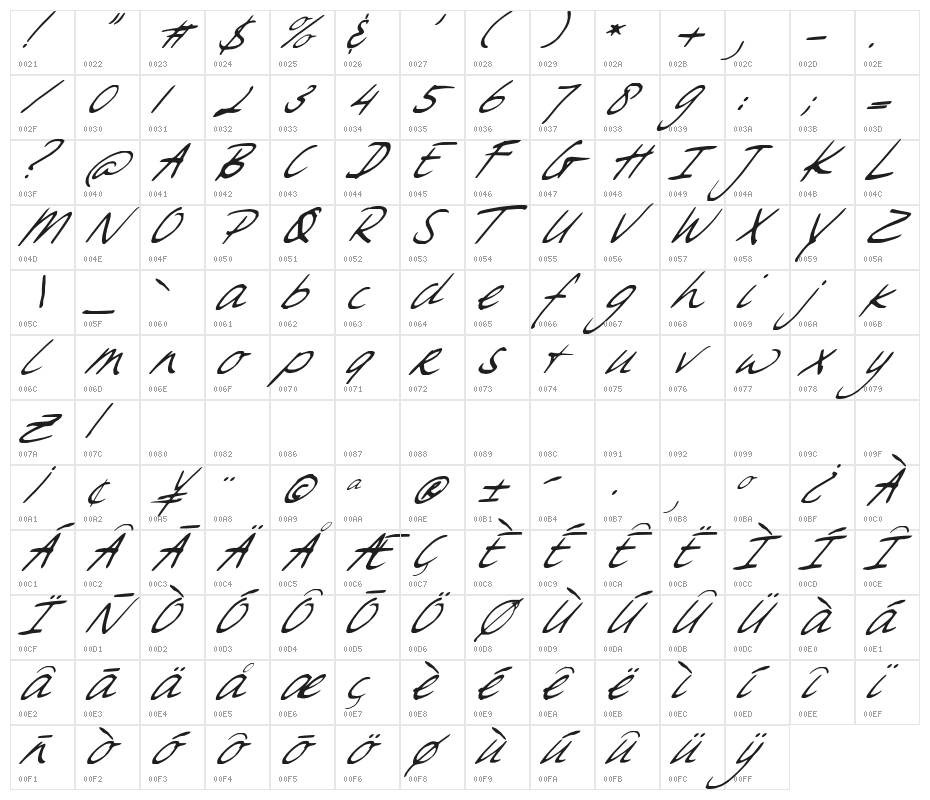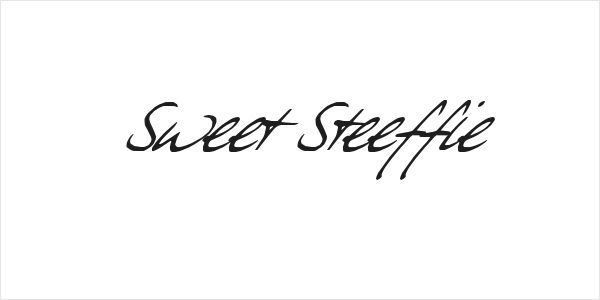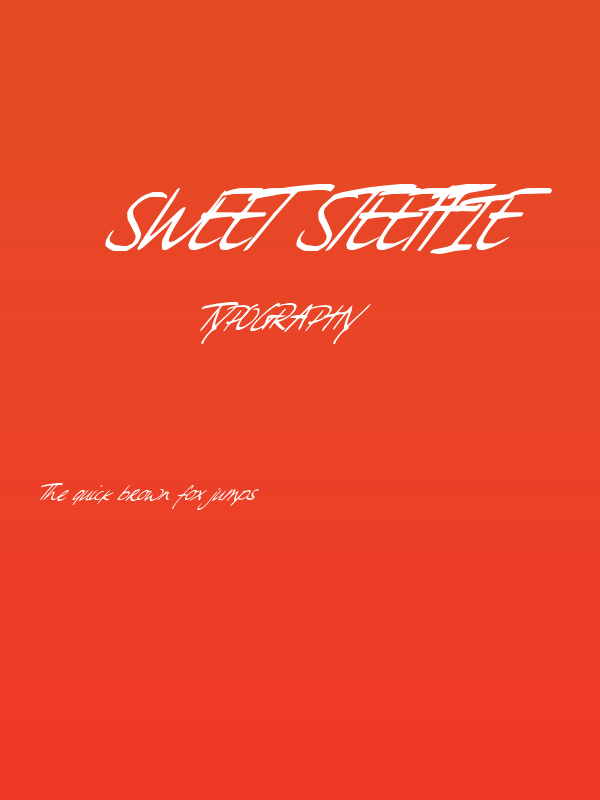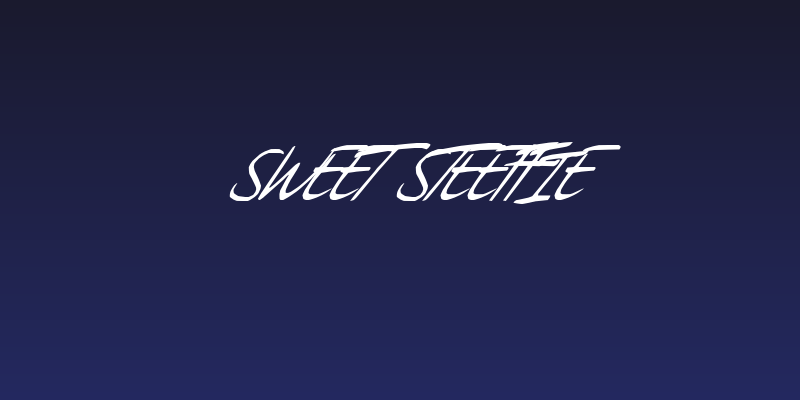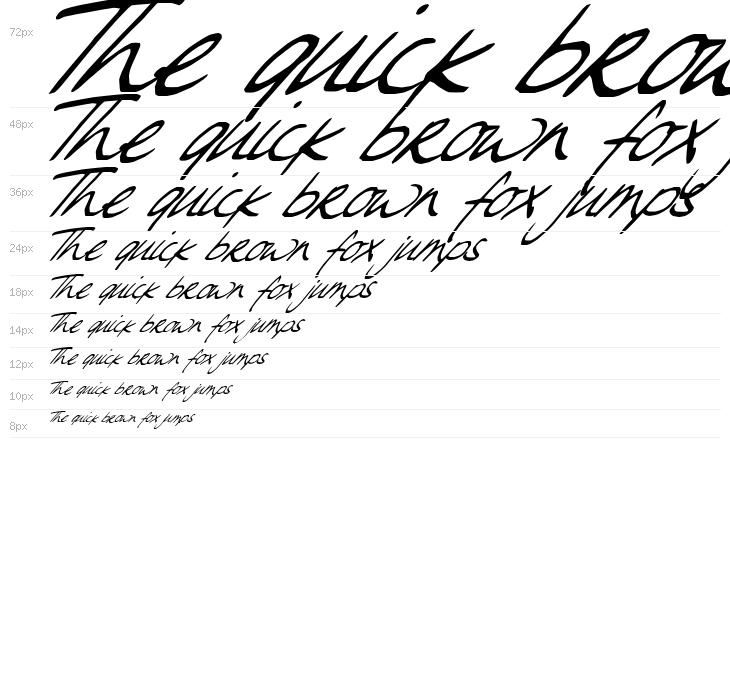
Sweet Steeffie Font
Sweet Steeffie Description
This font exudes a dynamic and expressive style, characterized by its fluid, cursive script that mimics natural handwriting. The strokes are bold and sweeping, with a slight slant that adds to its energetic feel. Each letter is distinct yet harmonizes well with others, creating a cohesive and artistic appearance. The uppercase letters are particularly striking, with exaggerated loops and flourishes, while the lowercase letters maintain a more subtle elegance. The numbers and special characters follow the same stylistic cues, ensuring consistency throughout. This font is ideal for projects that require a personal touch or a sense of movement and creativity.
| Proposed Projects | Ideal for invitations, greeting cards, branding, and artistic projects that require a personal touch. |